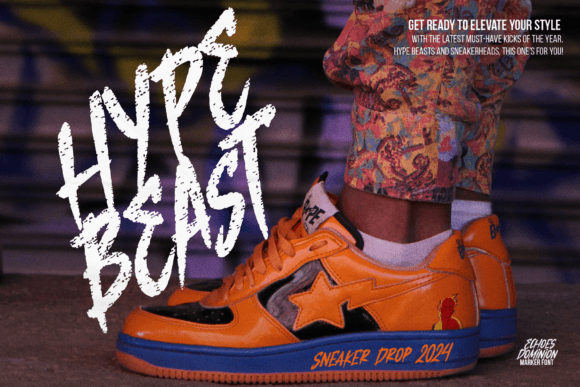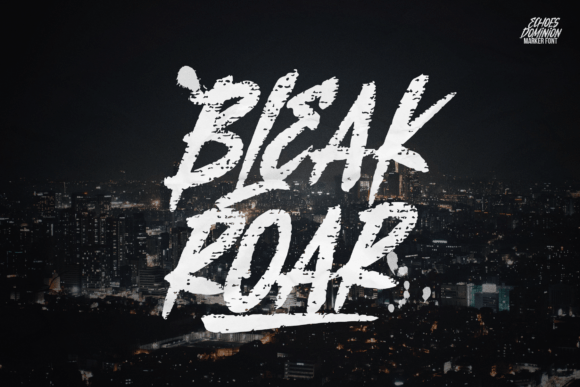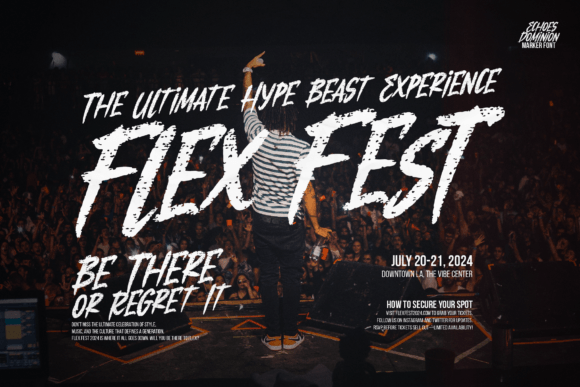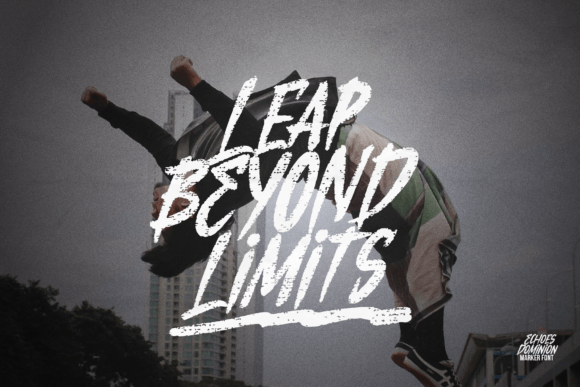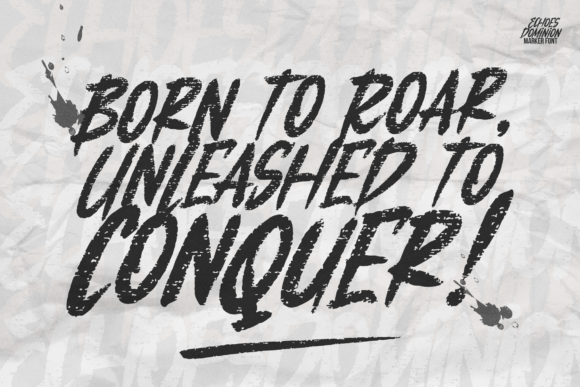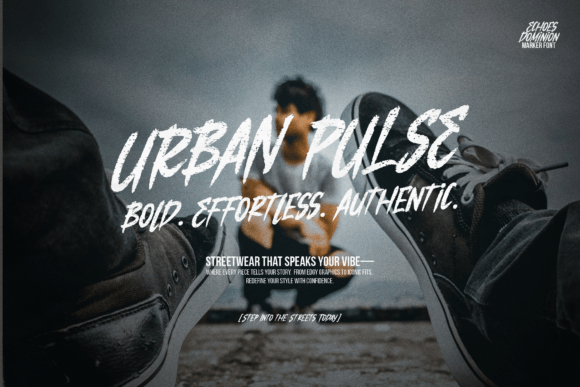
Introduction to Echoes Dominion Font
Echoes Dominion is a bold, all-caps marker font with a strong, dramatic look.
Its thick, uneven strokes give it a hand-drawn, artistic feel, perfect for making a statement in designs .